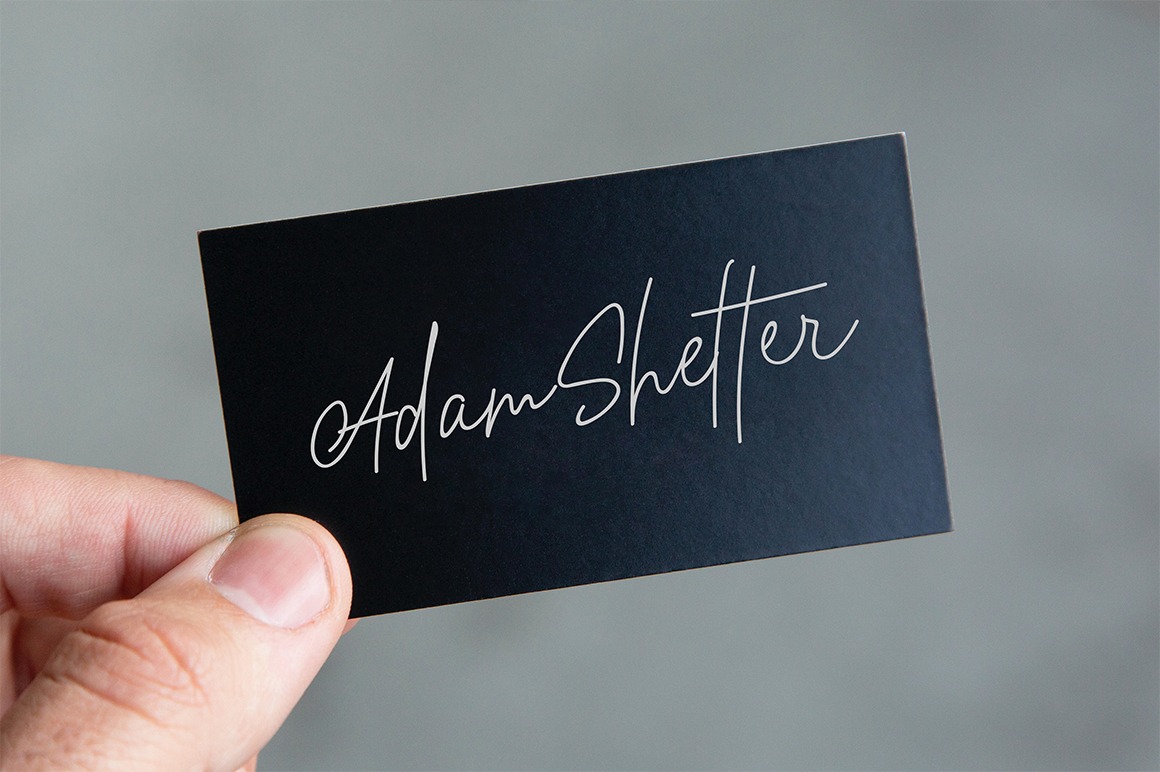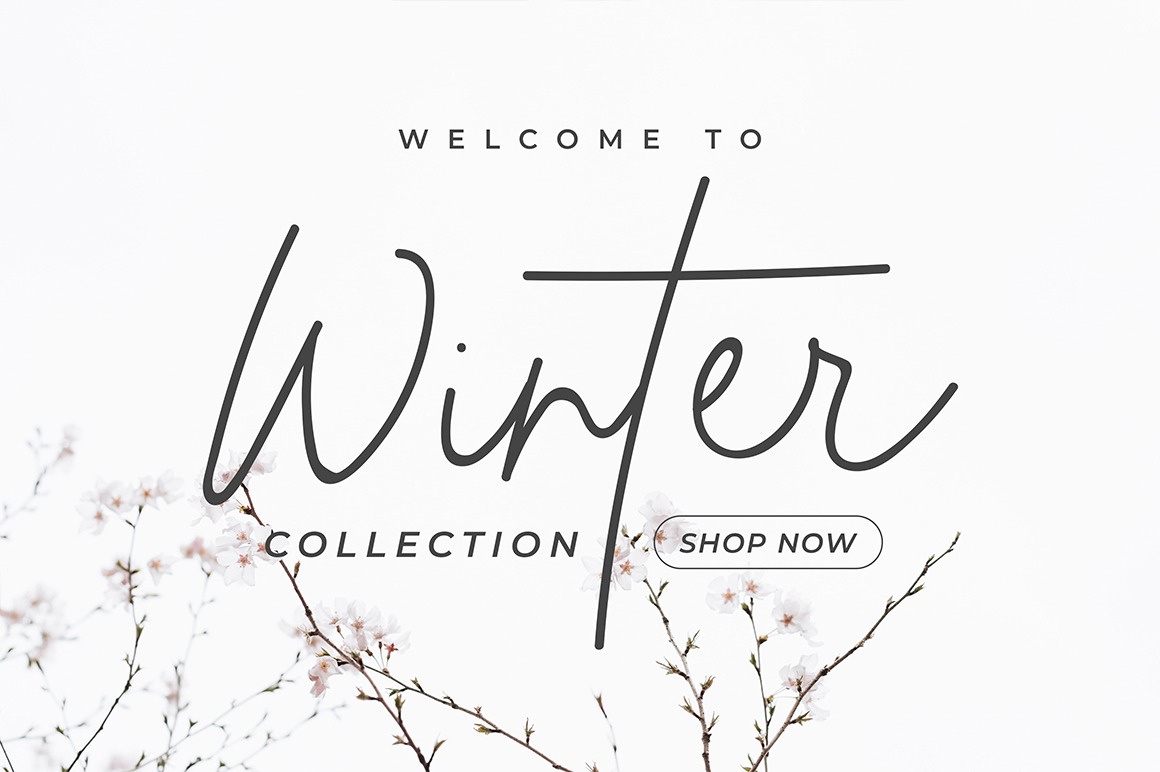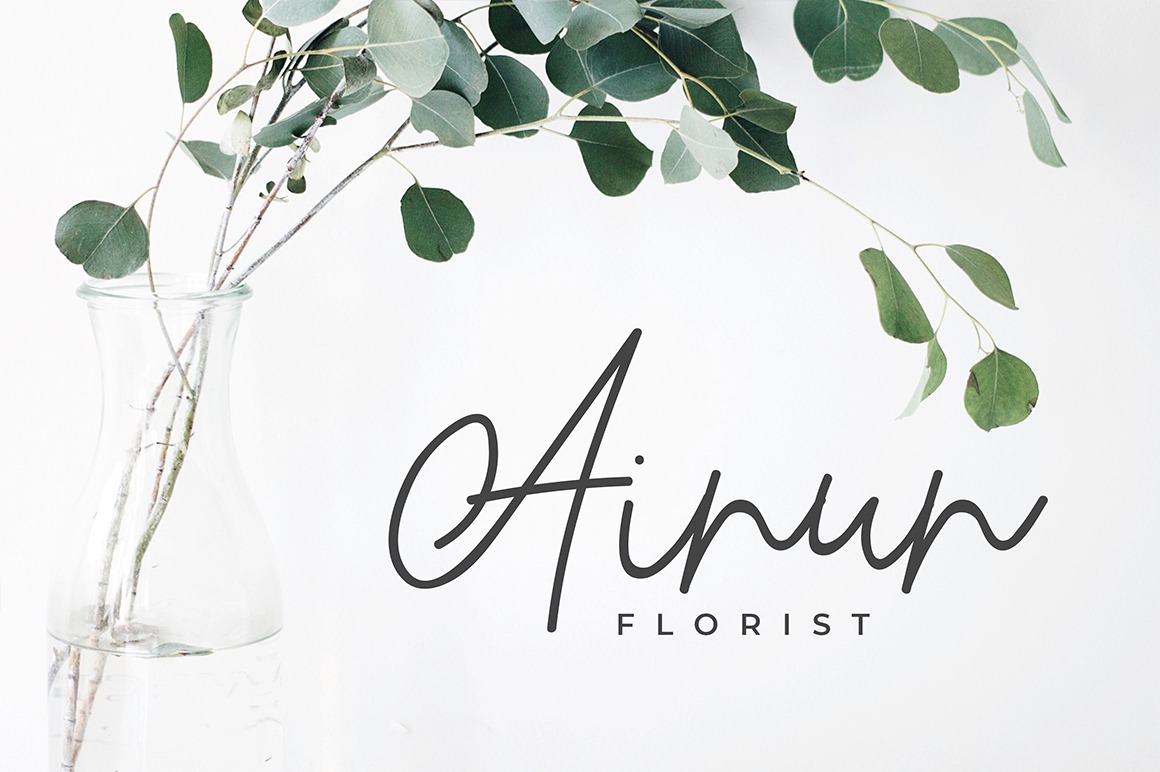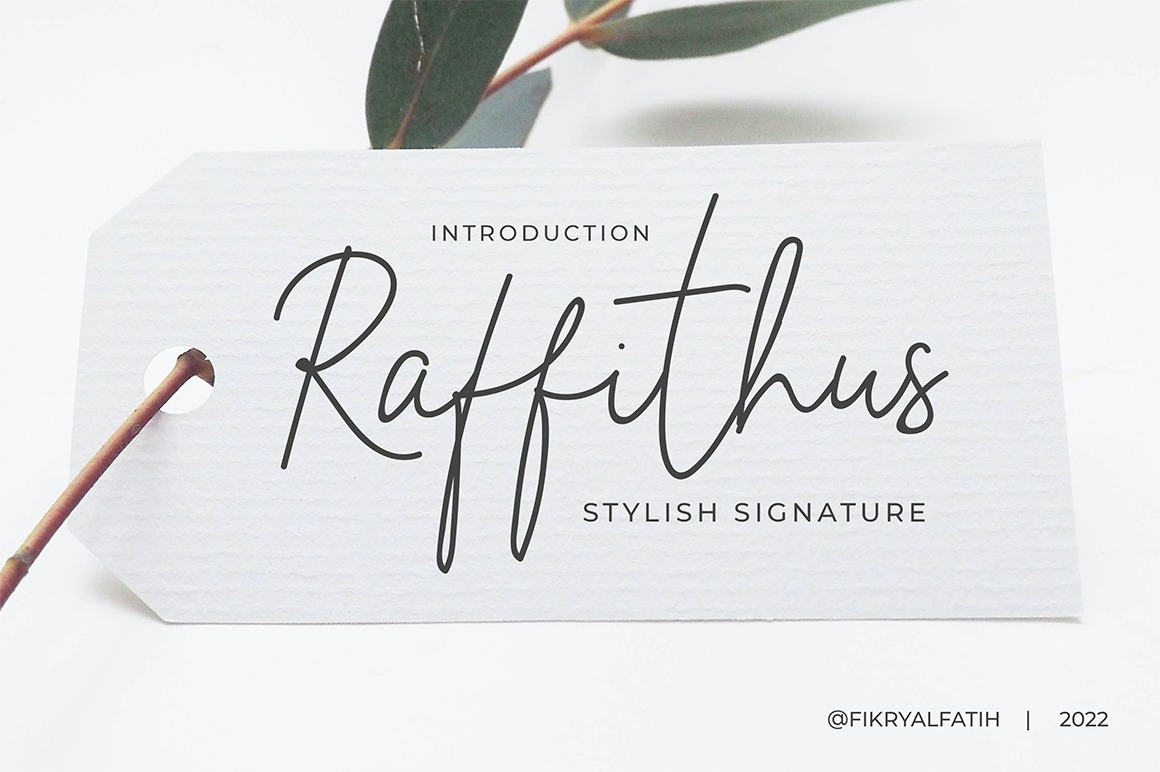
Raffithus Handwritten Font
This typeface is an elegant and simple monoline stylish script with handwritten style, described by an elegant touch, perfect for your favorite projects. It looks stunning on handwritten-style logos, wedding invitations, modern websites, quotes, business cards, packaging and every other design which needs a handwritten touch, and more.